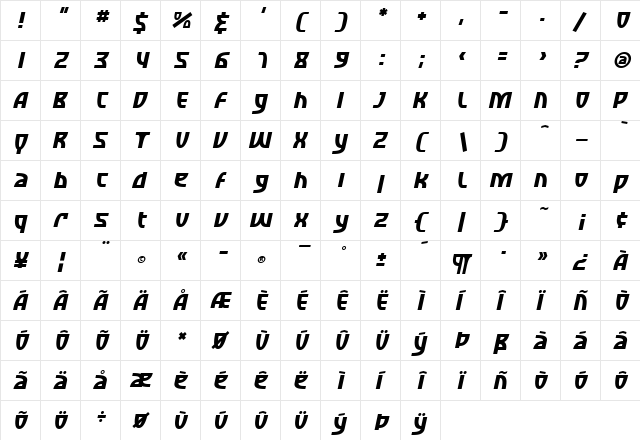
SF Retroesque Oblique
Design Context for SF Retroesque Typeface
SF Retroesque has the warm character of retro typography — evoking diners, record sleeves, and the golden age of print advertising. Its italic angle brings a sense of urgency and motion to the letterforms.
Ideal for diner signage, record shop branding, 70s/80s-themed projects, and heritage product labels.
Font Pairing: Combine SF Retroesque with a simple slab or neutral sans — period-accurate companions reinforce the vintage feel without competing for attention.
Pro Tip: Lean into SF Retroesque's period character by pairing it with aged paper textures, muted colour palettes, and vintage illustration styles.